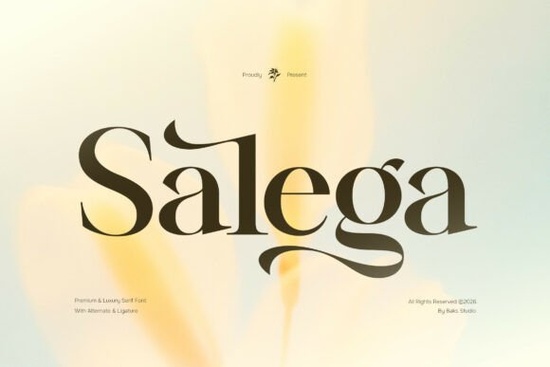
Designers, crafters, and small business owners often look for fonts that can add a touch of sophistication to their work. If you're searching for a typeface that combines elegance with versatility, the Salega Font might be just what you need. This premium serif font is ideal for creating high-end designs that stand out. Whether you're working on logos, marketing materials, or editorial projects, Salega offers a refined look that feels both timeless and modern.
One of the standout features of Salega is its high contrast strokes and smooth curves. These details make it perfect for projects that require a sense of luxury and refinement. The font includes a range of alternates and ligatures, giving you more flexibility when designing. This level of detail ensures that your work looks professional and polished, no matter the medium.
If you're looking for a font that can elevate your branding efforts, Salega is an excellent choice. It works well for a variety of applications, including elegant brand identities, luxurious business cards, and high-end product packaging. Its clean yet distinctive style makes it suitable for both print and digital formats. For those who want to add a touch of class to their social media graphics or web design, Salega provides a sophisticated foundation.
What Makes Salega Stand Out?
Salega is designed with attention to detail, making it a go-to option for designers who value quality. The font’s fluidity and balance between classic and contemporary styles set it apart from other serif fonts. Its ability to convey a sense of luxury without being overly ornate makes it adaptable for different creative needs. Whether you're working on a wedding invitation or a magazine layout, Salega delivers a refined aesthetic that enhances the overall look of your project.
Best Uses for Salega Font
There are several scenarios where Salega shines. For instance, it’s great for creating striking posters and advertising campaigns that demand visual impact. Its legibility and stylistic elements make it ideal for editorial design, such as magazines and lookbooks. When used in wedding invitations or event typography, Salega adds a level of sophistication that complements the occasion.
In addition to print materials, Salega is also effective for web design and social media graphics. Its clean lines and balanced structure ensure readability while maintaining a high-end feel. Small businesses looking to create a strong brand presence can benefit from using this font in their logos, stationery, and online content.
How to Get the Most Out of Salega
To use Salega effectively, start by understanding the context of your project. Consider the tone and message you want to convey, and choose the appropriate weight and style of the font. Experimenting with different layouts and color schemes can help you achieve the desired effect. Always test the font in different sizes and formats to ensure it works well across all platforms.
When working with serif fonts like Salega, it's important to maintain a balance between readability and aesthetics. Avoid overcrowding text with too many design elements, and keep the overall composition clean and organized. This approach ensures that your designs remain professional and visually appealing.
Whether you're a designer, a small business owner, or a creative hobbyist, Salega offers a versatile solution for adding a touch of luxury to your work. Its blend of classic and modern design elements makes it a valuable addition to any creative toolkit.